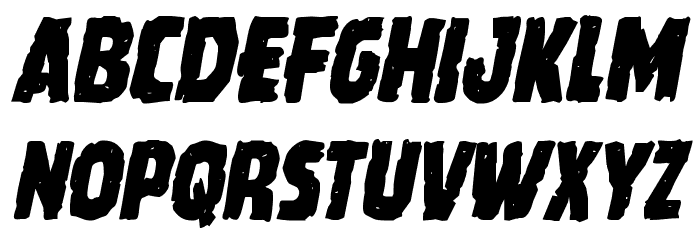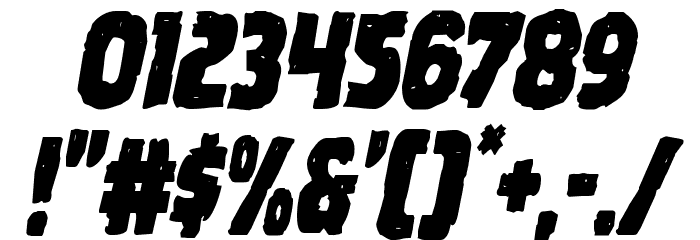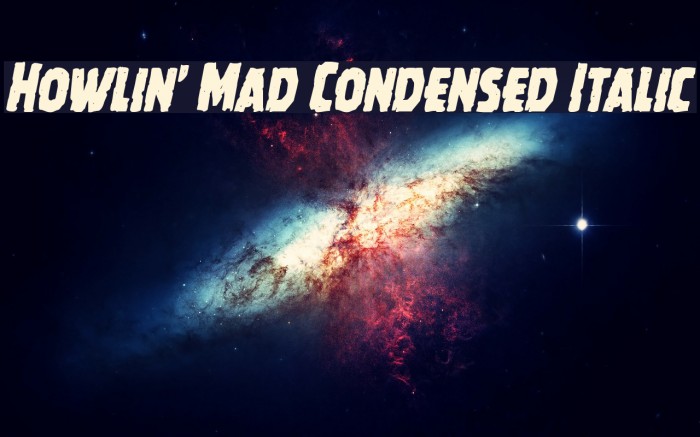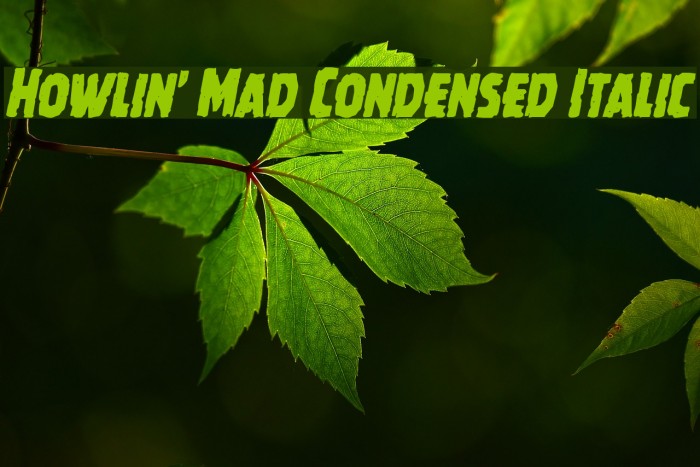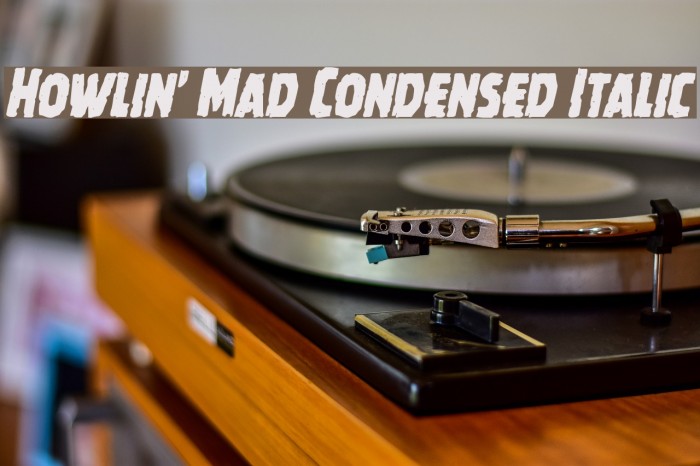
Howlin' Mad Condensed Italic Font
This font features a bold, condensed style with a distinct italic slant, giving it a dynamic and energetic appearance. The characters are heavily stylized with rough, jagged edges, creating a sense of movement and urgency. The uppercase and lowercase letters maintain a consistent weight, contributing to its bold presence. The numbers and special characters follow the same design principles, ensuring uniformity across all glyphs. This font's unique texture and condensed form make it stand out, ideal for attention-grabbing designs.
A bold, condensed, and italic font with rough, energetic styling.
- Font: Howlin' Mad Condensed Italic
- Proposed Projects: Perfect for posters, music album covers, sports branding, and dynamic advertising campaigns.
- Character Spacing: Tight
- Overall Style: Dynamic and Energetic